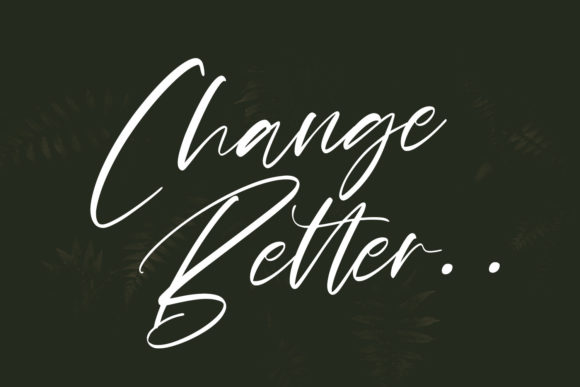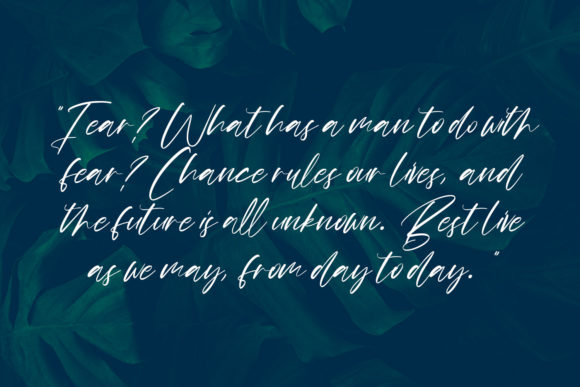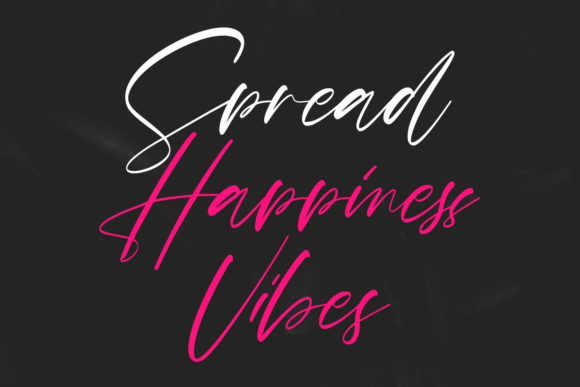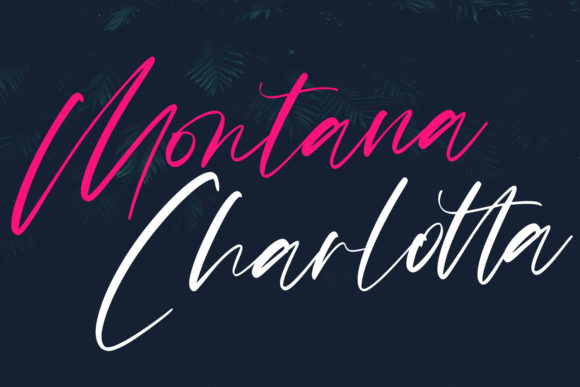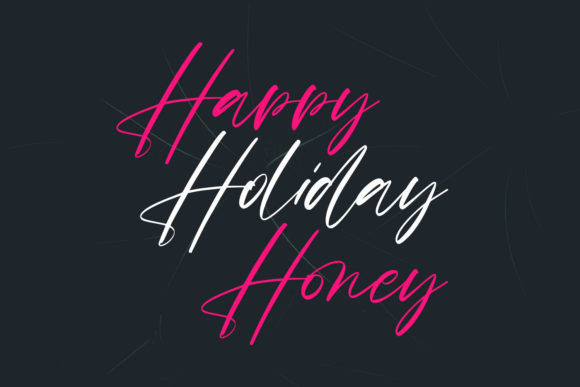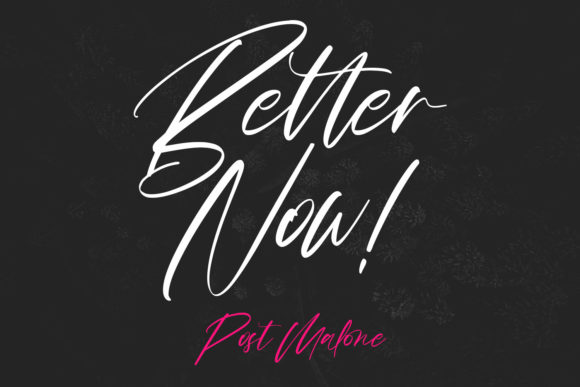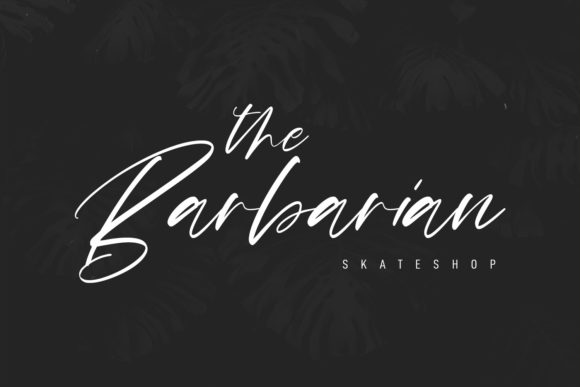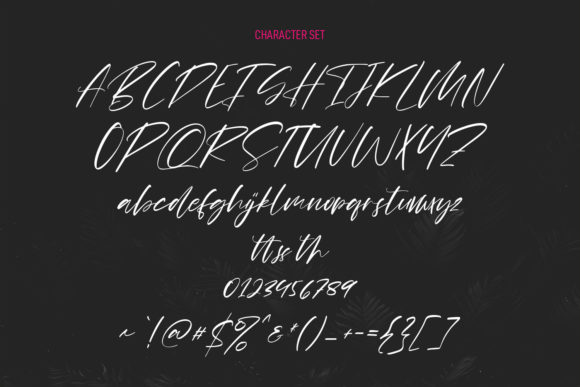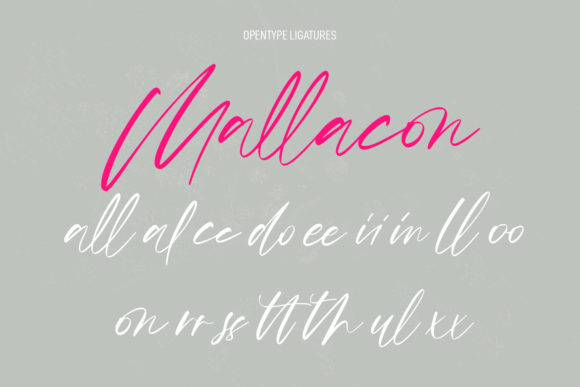
Shades Bookah Script Font
About Shades Bookah Script Font
Shades Bookah Script is a beautiful and flexible handwritten font. It is suitable for various design needs such as business cards, wedding invitations, banner ads and various other creations.